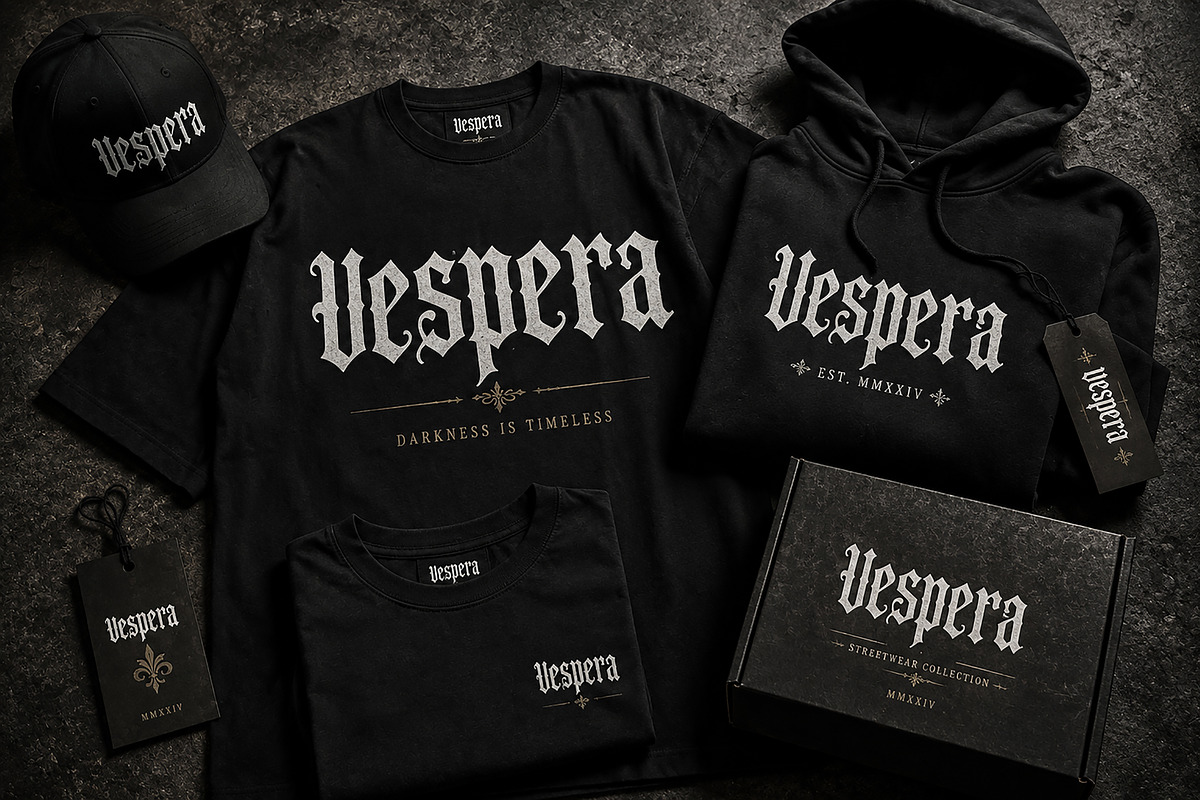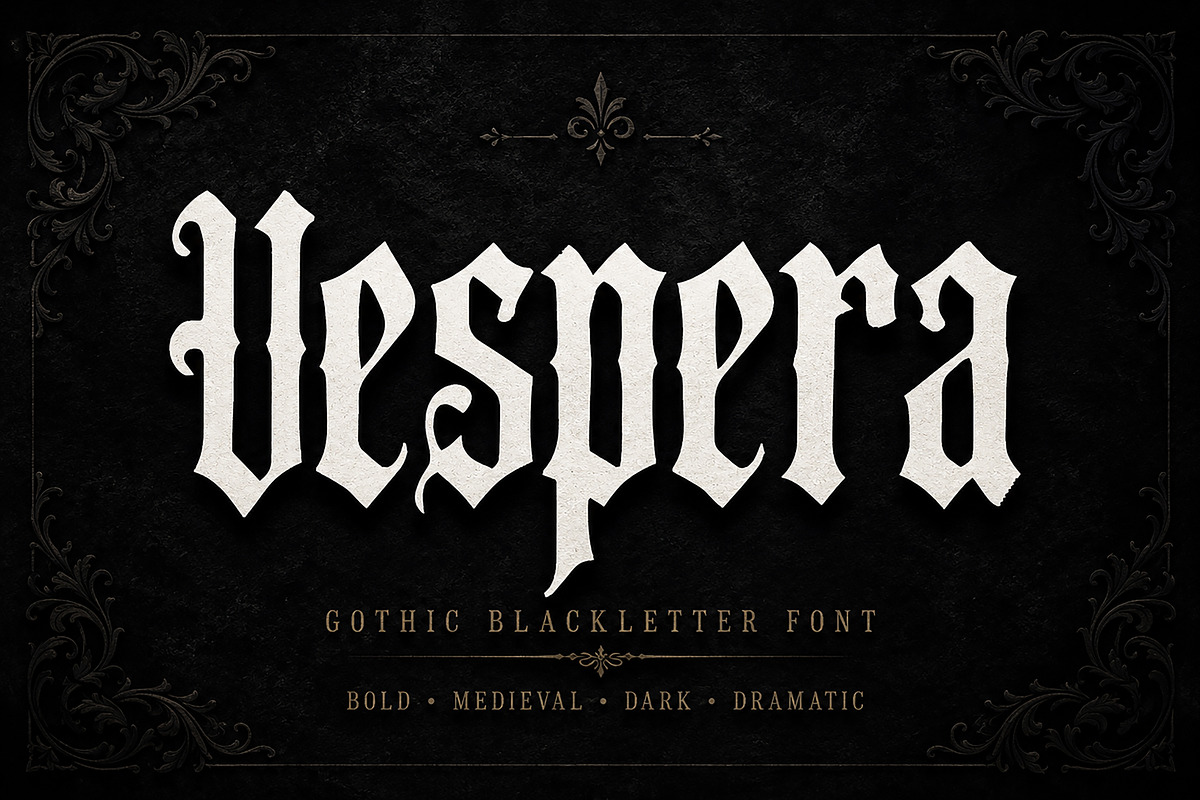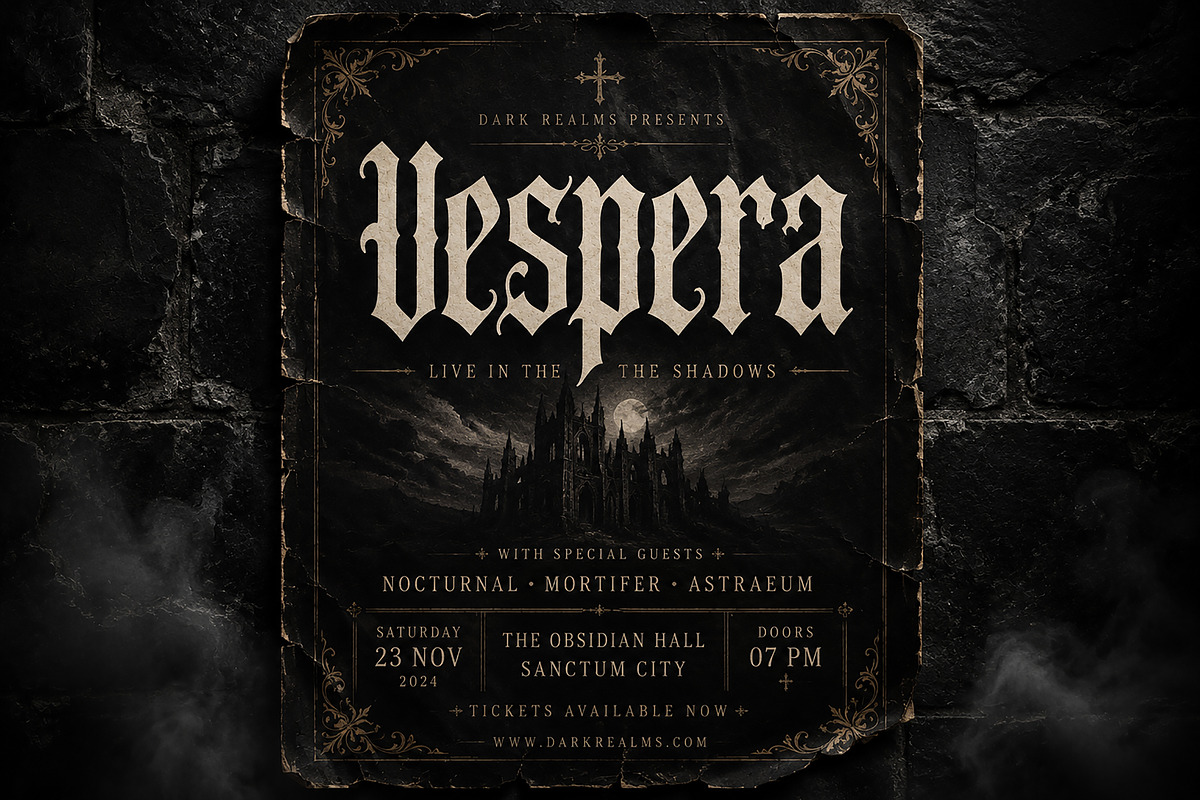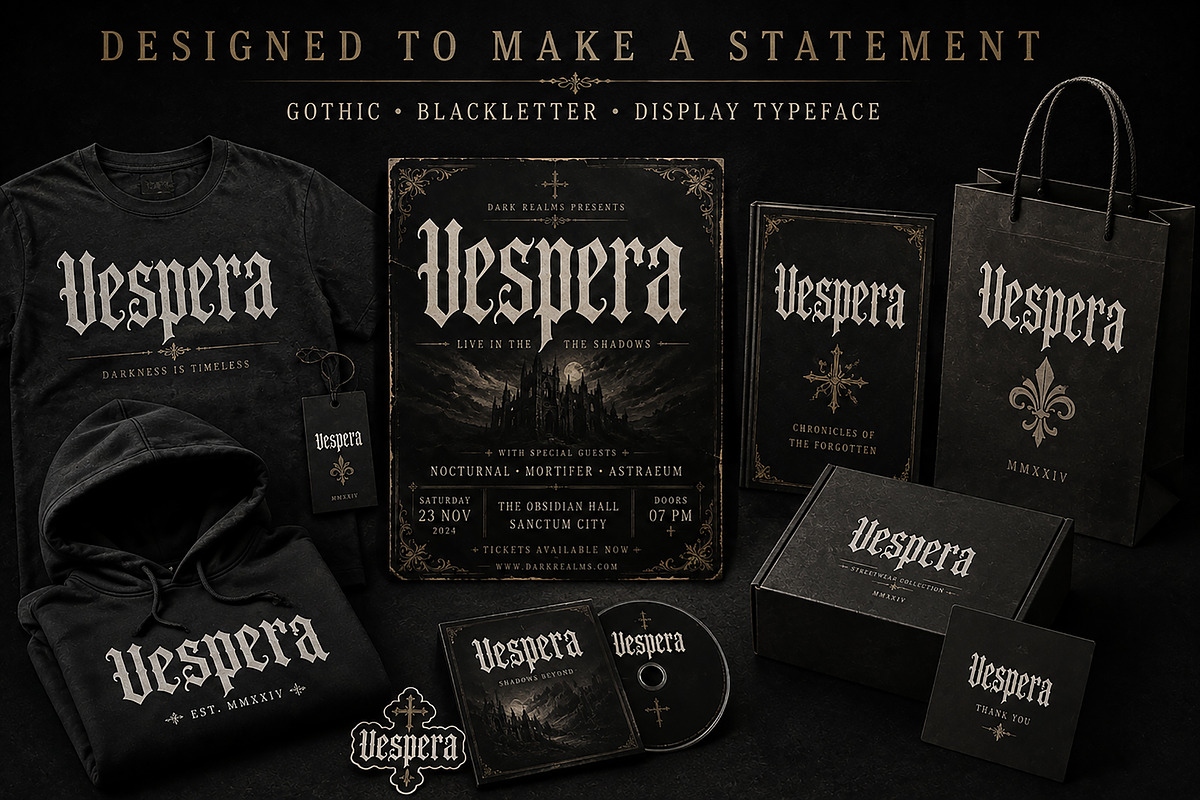
Vespera
Vespera — Gothic Blackletter Font
Vespera is a bold and dramatic Gothic Blackletter display font inspired by medieval typography, dark editorial aesthetics, and timeless tattoo-inspired lettering. Its sharp, distinctive letterforms and strong vertical structure create an intense visual presence that instantly gives designs a powerful Gothic character.
Designed to make a statement, Vespera works beautifully for streetwear graphics, band and music artwork, posters, album covers, logos, branding, packaging, book covers, labels, merchandise, tattoo-inspired designs, and editorial projects.
Its striking Blackletter appearance is especially suited to projects that need a dark, historical, rebellious, luxurious, or mysterious atmosphere.
Gothic & Blackletter Branding
Streetwear & Apparel Designs
T-Shirt & Hoodie Graphics
Music & Band Posters
Album & Mixtape Artwork
Event & Concert Posters
Logo & Brand Identity
Packaging & Product Labels
Book & Cover Design
Editorial Typography
Tattoo-Inspired Artwork
Stickers & Badges
Vintage & Medieval Designs
Dark Luxury Projects
Bold Gothic Blackletter style
Strong and dramatic display lettering
Medieval-inspired aesthetic
Distinctive ornamental character
Excellent for headlines and logos
Suitable for print and digital projects
Great for branding and merchandise
Designed for impactful typography
Style: Gothic / Blackletter / Medieval Display